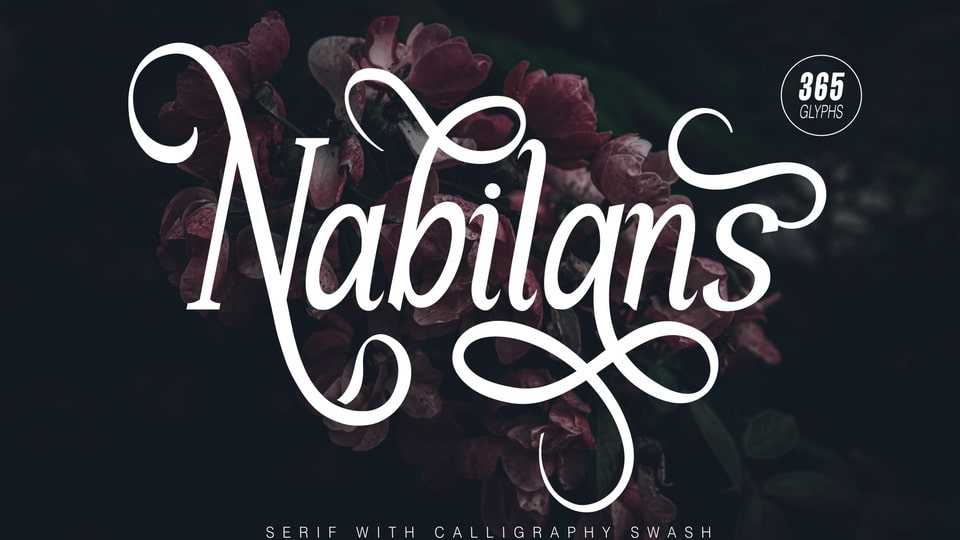
Download Nabilans font, a blend of serif and calligraphic swash typefaces. Crafted with elegant tail flourishes on select letters, inspired by calligraphy.
Designer: Fikhry Mus Pratama